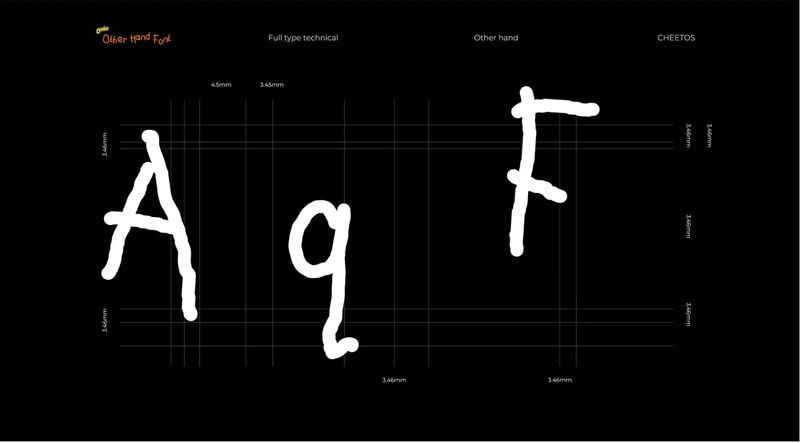
The Cheetos 'Other Hand' Font is the latest quirky innovation from Cheetos, created with a unique twist: designers used their nondominant, Cheeto-free hand to craft every letter. Launched by Goodby Silverstein & Partners and led by co-founder Rich Silverstein, the font embraces the insight that 99% of people eat Cheetos with their dominant hand, leaving their "other hand" for everything else.
Unveiled on National Handwriting Day, the font is an extension of the Other Hand campaign, which humorously celebrates the realities of Cheetos snacking. Users can download the font and even install a browser plug-in to replace text on any website with this delightfully imperfect lettering.
The Cheetos Other Hand Font is a Playful Twist on Design